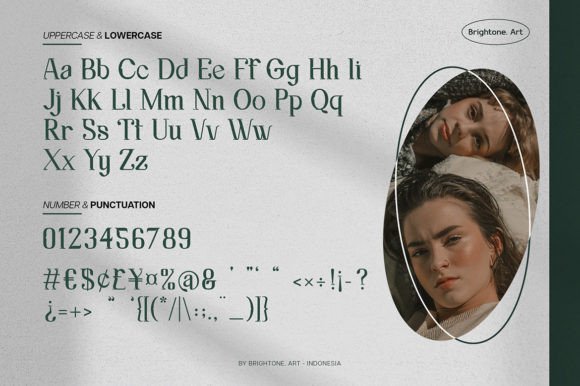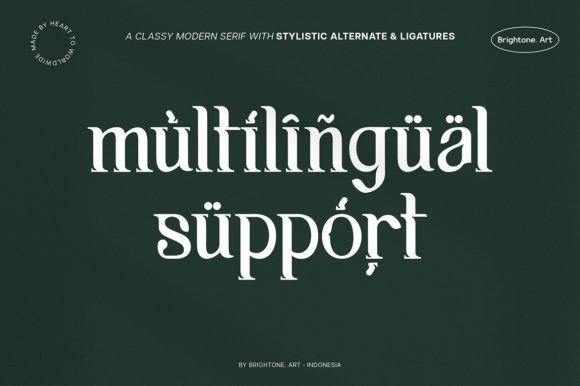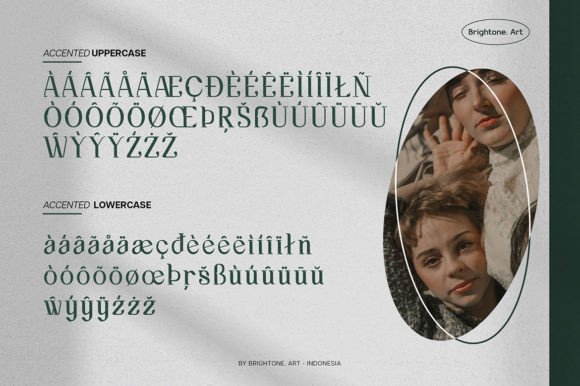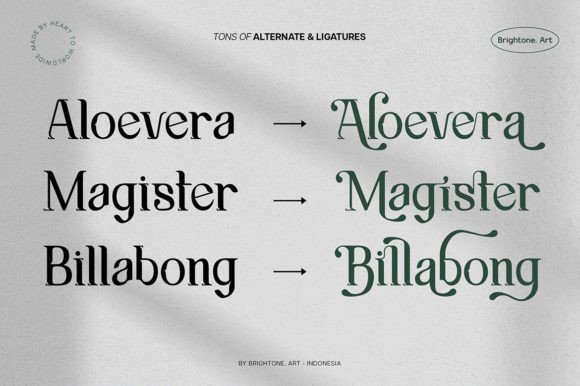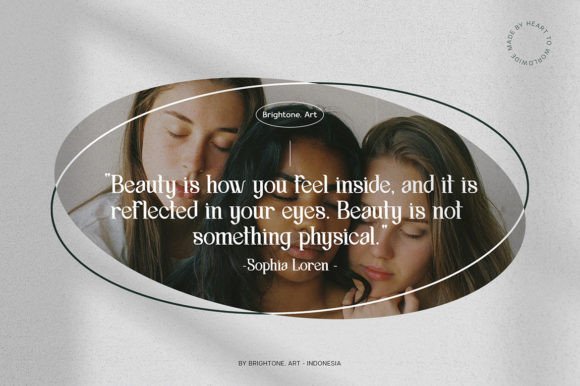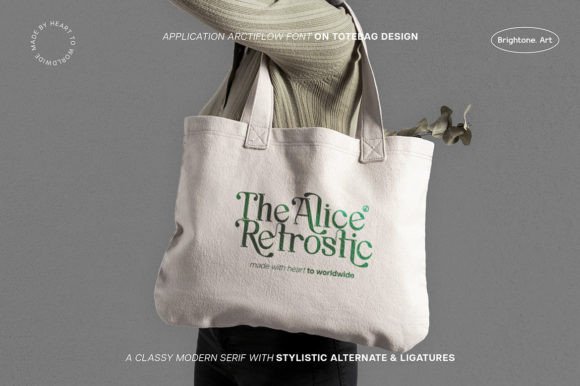
Discover the Perfect Typographic Partner for Your Next Design Project
Have you ever stared at a blank page, waiting for the perfect font to emerge and bring your design to life? It’s a feeling every creative knows all too well. That’s exactly what happened to us when we discovered the stunning Arctiflow Font – a modern serif font that’s as stylish as it is versatile.
This chic font is perfect for designers looking to add a touch of femininity to their projects. With its elegant lines and sophisticated feel, Arctiflow Font is an ideal choice for everything from fashion branding to lifestyle publications. Its value lies in its ability to elevate any design, making it a must-have for any serious designer looking to take their work to the next level.
Arctiflow Font Key Features
- Font Family: Arctiflow comes in 6 styles, including Regular, Bold, Italic, Bold Italic, Light, and Light Italic.
- Unique Characteristics: The font features a unique blend of modern and vintage elements, with a focus on clean lines and elegant curves.
Arctiflow Font Review
Overall, I’m quite impressed with the Arctiflow font, but like any design, it’s not without its flaws. Let’s dive into the good and the bad.
- Unique and Creative Style: Arctiflow has a distinct and modern aesthetic that sets it apart from other fonts.
- Legibility: Despite its quirky style, the font is surprisingly readable, even at smaller font sizes.
- Flexibility: Arctiflow is a versatile font that works well for a wide range of applications, from digital interfaces to print materials.
- Limited Character Set: One of the main drawbacks of Arctiflow is its limited character set, which may not be suitable for languages that require a wide range of characters.
- Not Suitable for Body Text: While Arctiflow is great for headings and titles, it may not be the best choice for body text, as it can be fatiguing to read in large blocks.
In conclusion, Arctiflow is a unique and creative font that can add a touch of modernity to your designs. While it may have some limitations, it’s a great choice for applications where you want to make a statement. Just be sure to use it judiciously and balance it with more legible fonts for body text.
Getting the Most Out of Arctiflow Font
Arctiflow Font is best used for:
- Designing minimalist and modern branding materials.
- Creating elegant and sophisticated typography.
- Adding a touch of sophistication to your digital content.
Arctiflow Font is commonly used for:
- Business cards and letterheads.
- Website headers and footers.
- Social media graphics and ads.